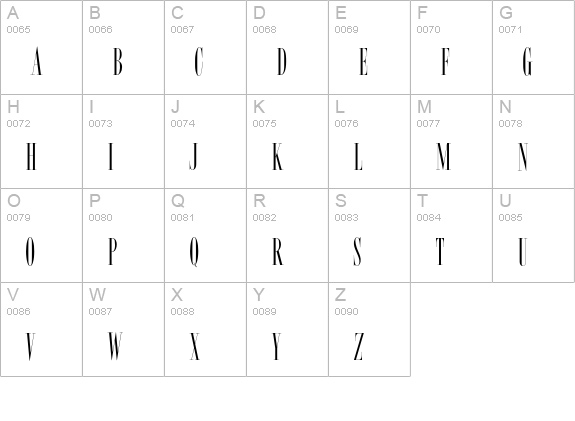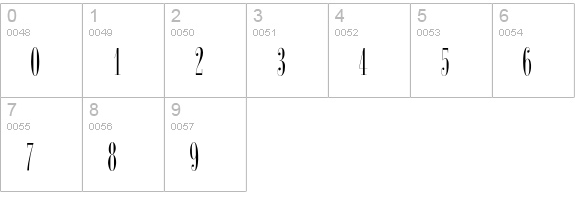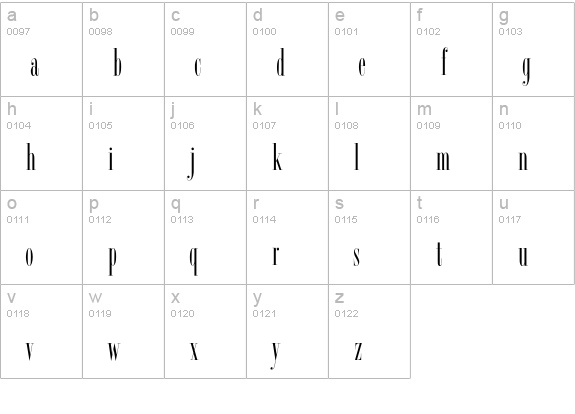
Zeppelin Font Details
The Zeppelin font is a bold and modern typeface that exudes a sense of strength and sophistication. With its clean lines and striking design, this font is perfect for making a statement in your designs. Whether you're creating a logo, poster, or any other project, Zeppelin will add a touch of elegance and professionalism. Best of all, Zeppelin is completely free to download at FontsMarket.com. This means that you can easily access this high-quality font without having to worry about any additional costs. Don't miss out on the opportunity to enhance your designs with the stylish and versatile Zeppelin font. Download it today and take your projects to the next level!